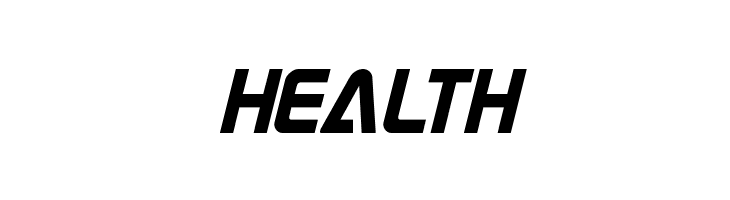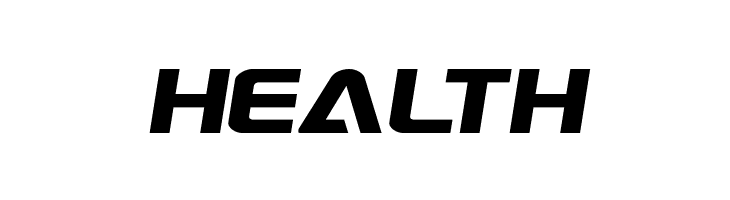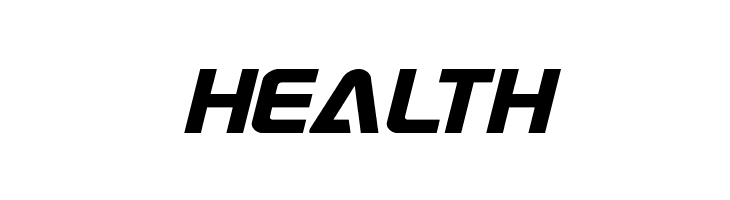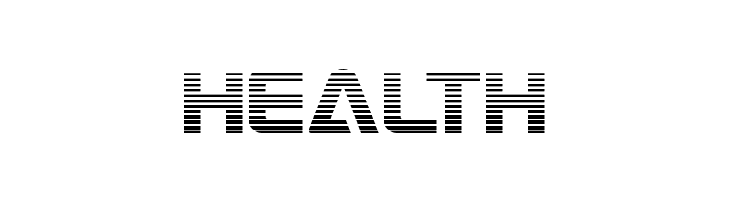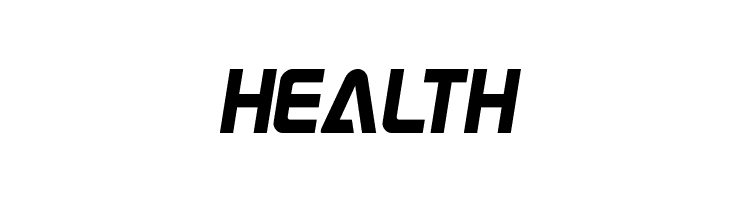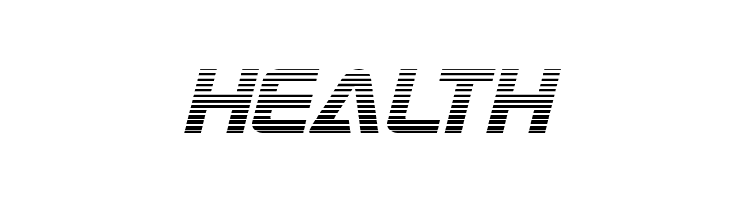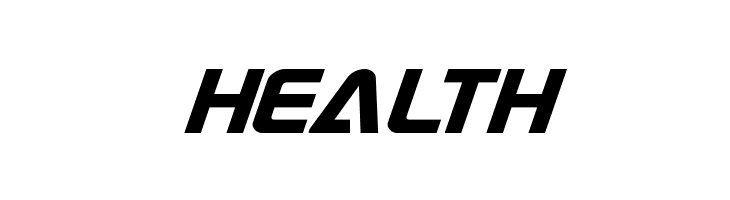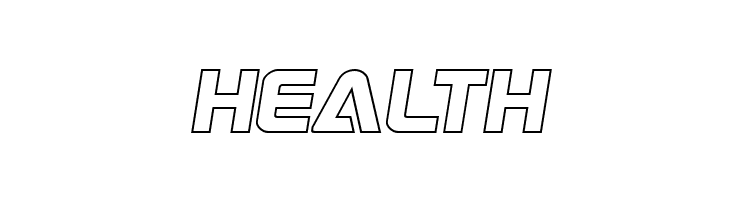
A futuristic, condensed italic font with sharp angles and a dynamic style.
A bold, expanded, semi-italic font with a futuristic and dynamic design.
A futuristic, line-patterned font with a bold, geometric style.
A bold, futuristic italic font with angular, geometric characters.
A futuristic, bold font with a gradient effect created by horizontal lines.
A bold, condensed, semi-italic font with a futuristic and dynamic design.
A futuristic italic font with gradient lines and a dynamic, high-tech style.
A bold, italic, and futuristic font with a dynamic, angular design.
A futuristic, two-tone italic font with a dynamic and speedy appearance.
A futuristic, outlined, semi-italic font with a geometric design.